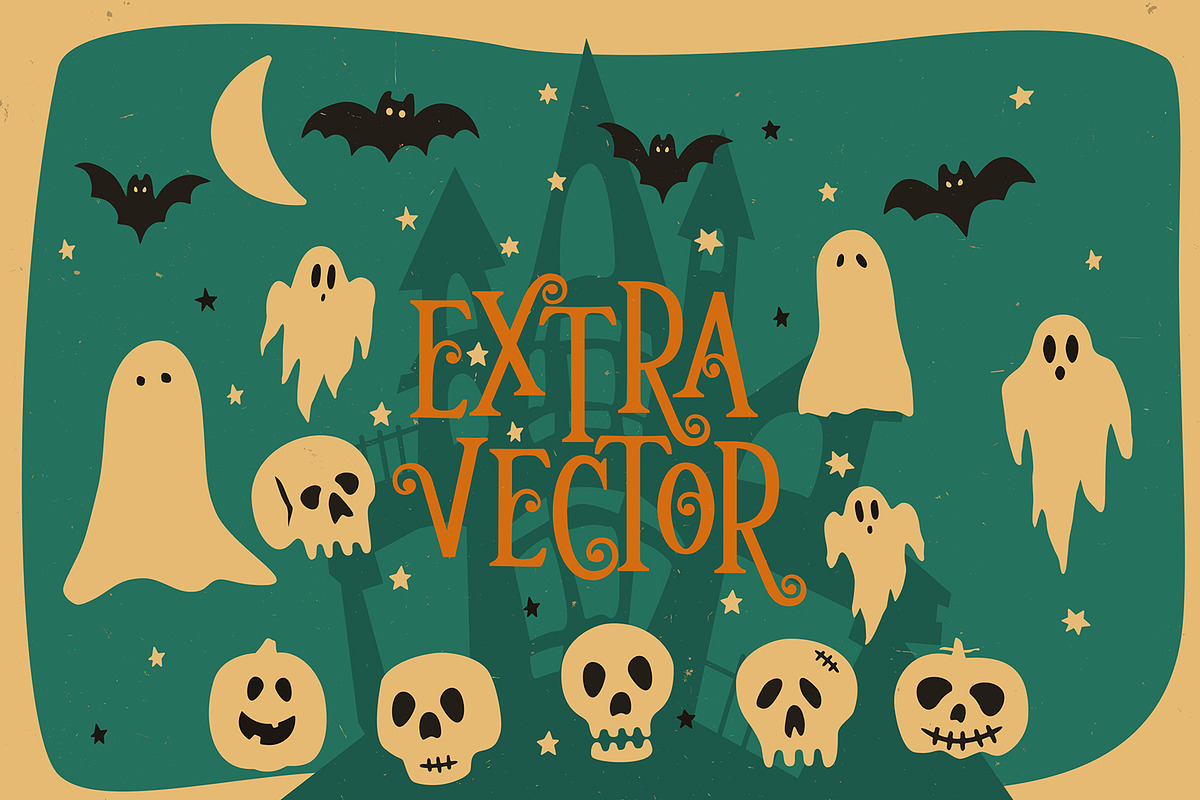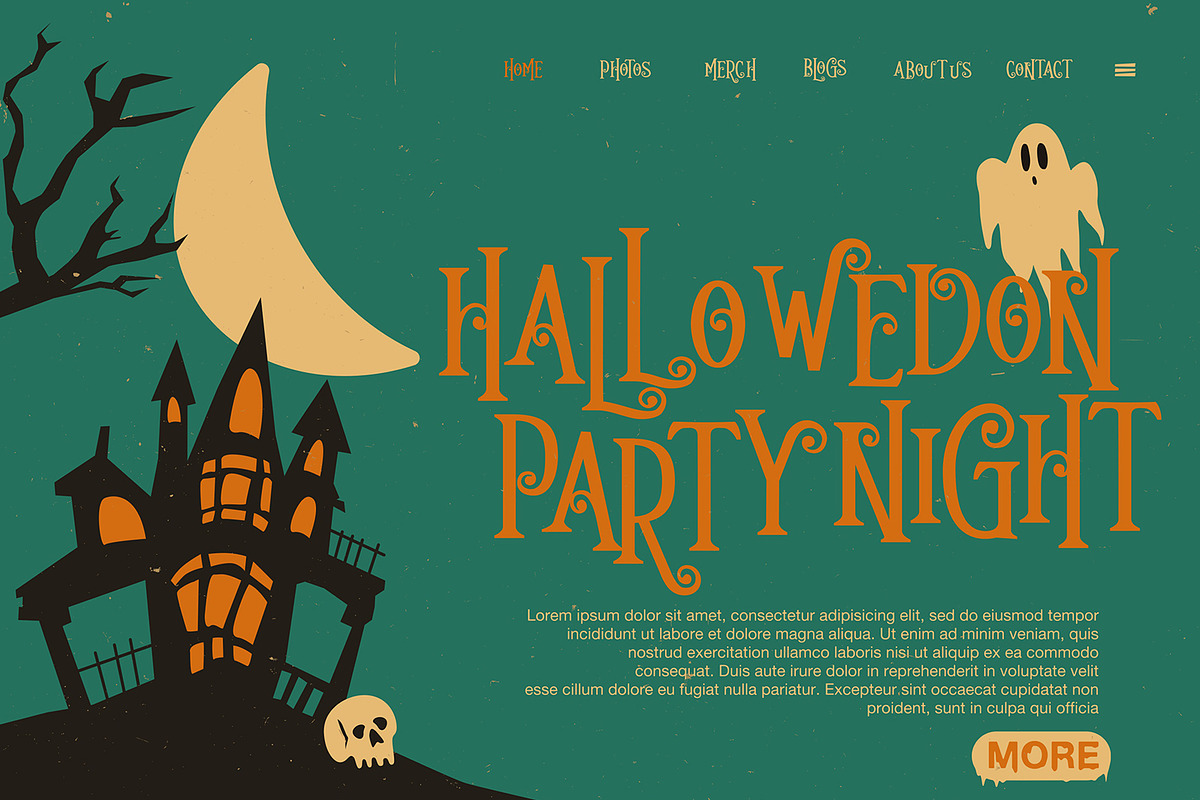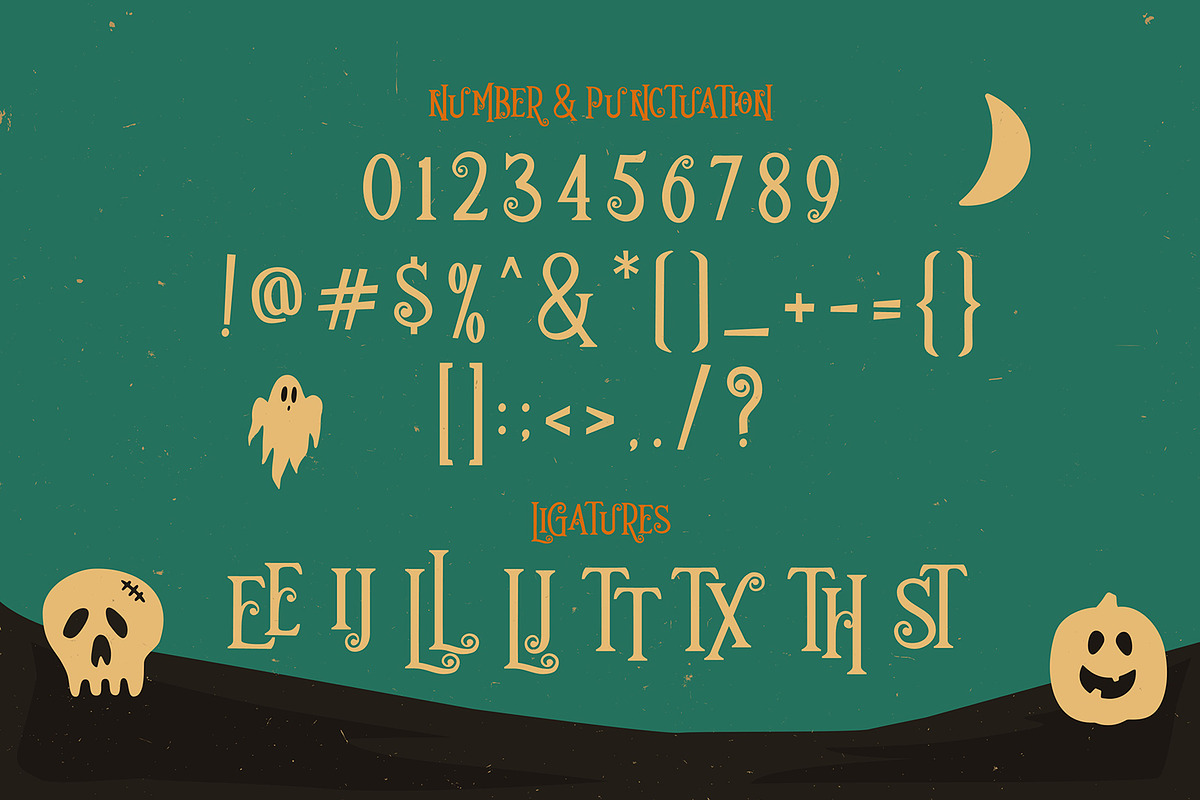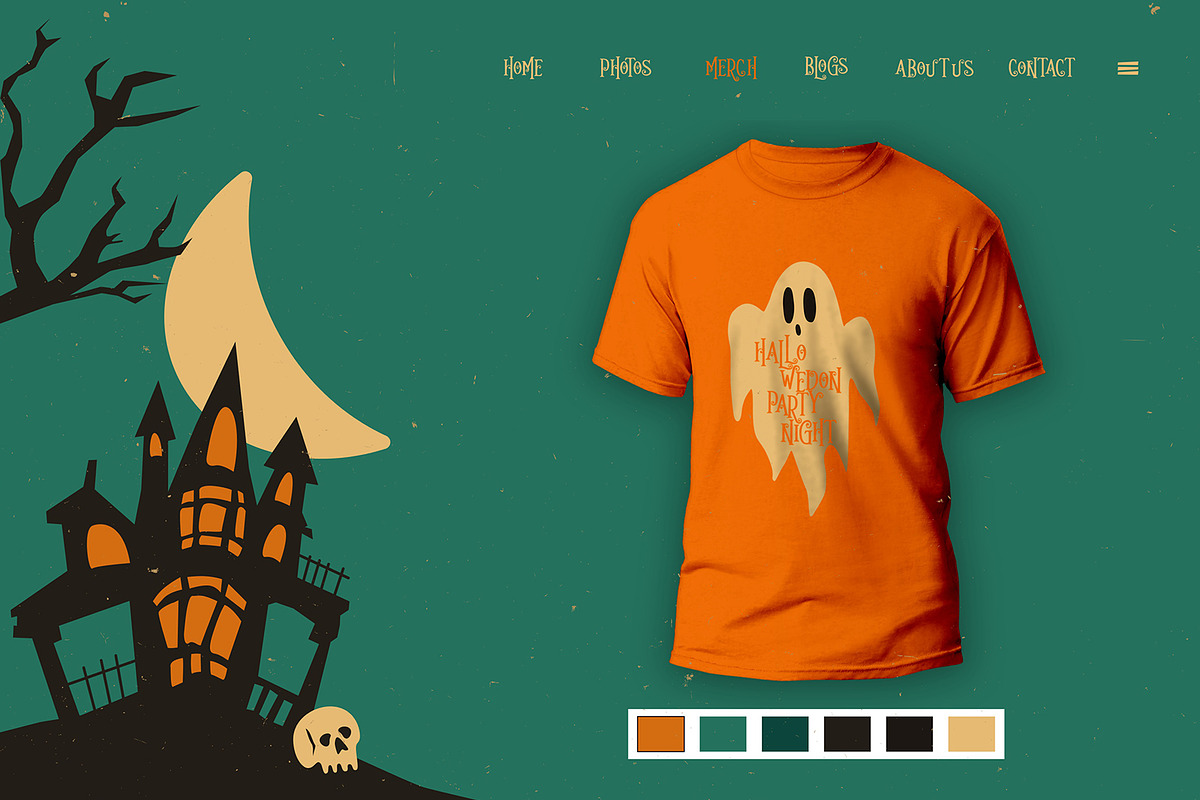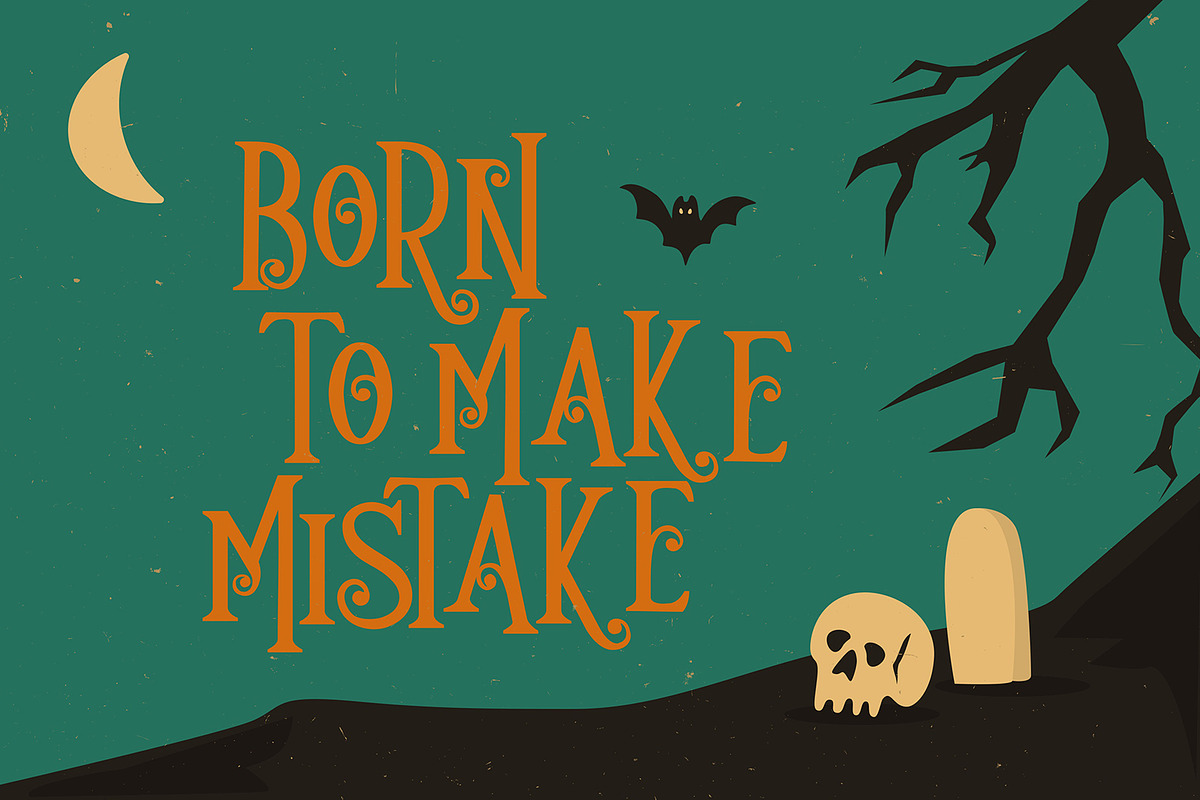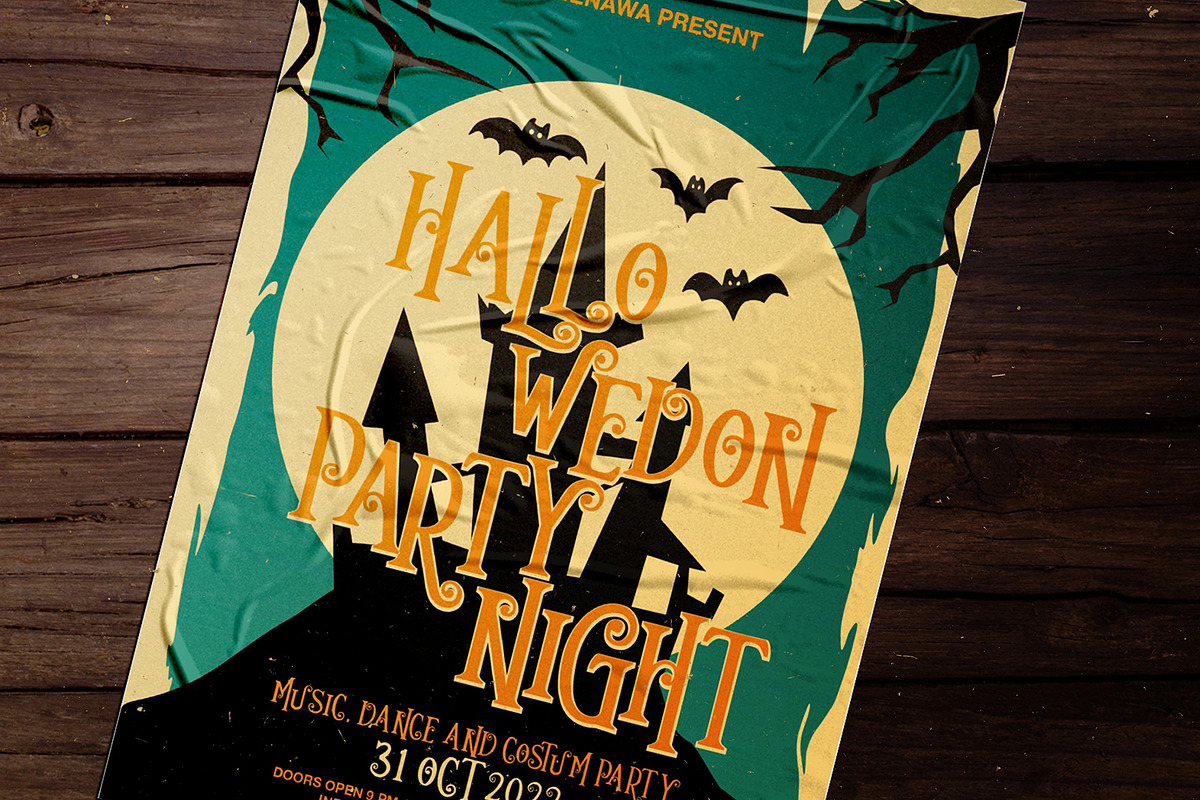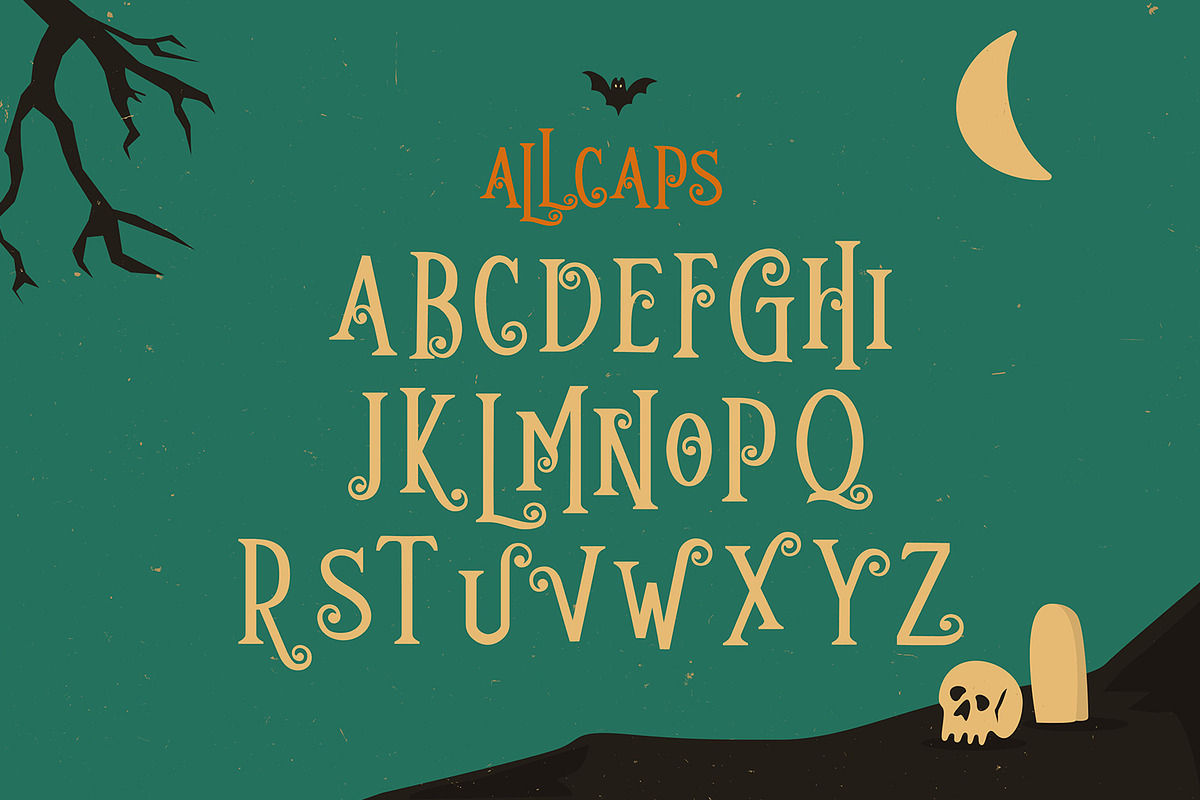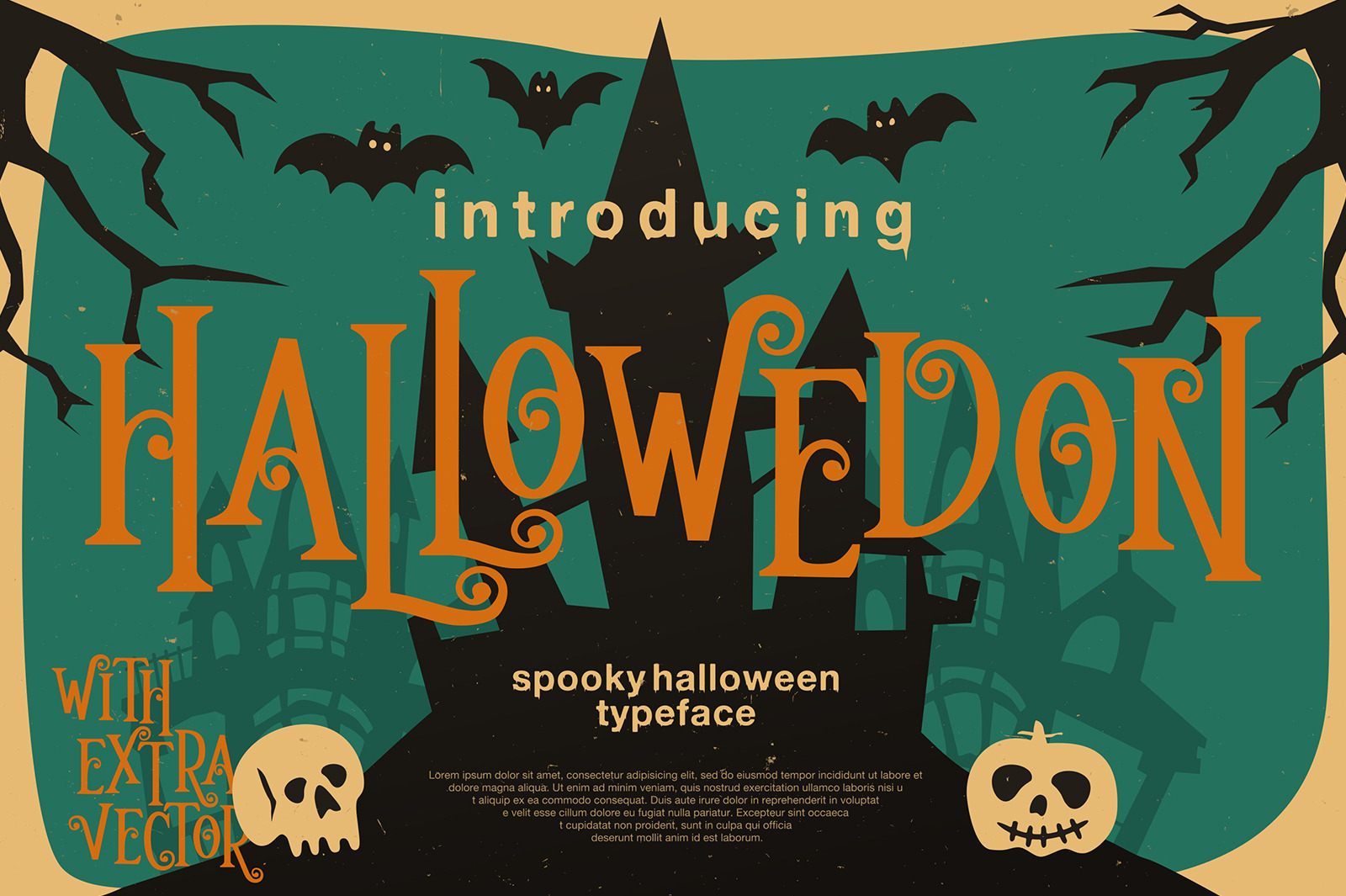
Hallowedon - Scary typeface
Hallowedon is a creepy and spooky looking display font. It is perfectly suitable for any Halloween-related project or crafty idea! The only limit is your imagination.